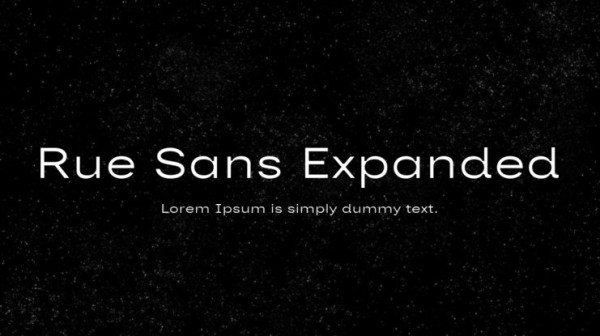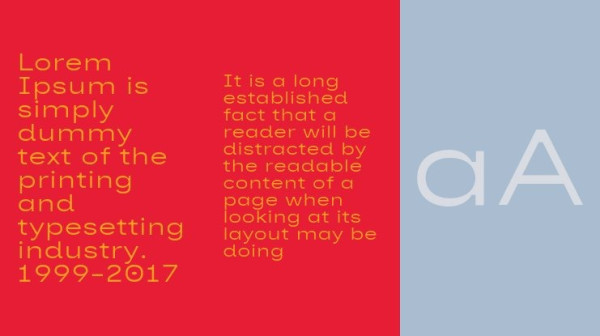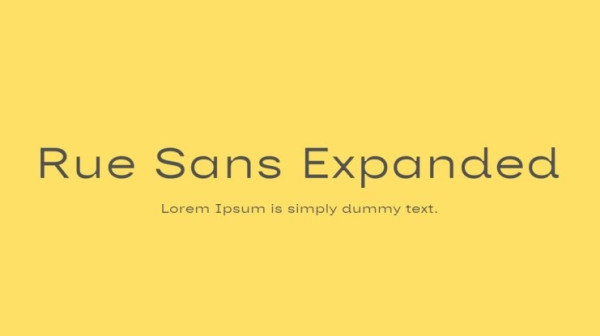
Rue Sans Expanded Font, is a sans serif stunning when combined or separately. This sans serif font style is legible and stunningly designed.
Rue Sans Expanded Font
| Designer Name: | Rue Habbal |
| Classification: | Display Fonts, Sans Serif Fonts |